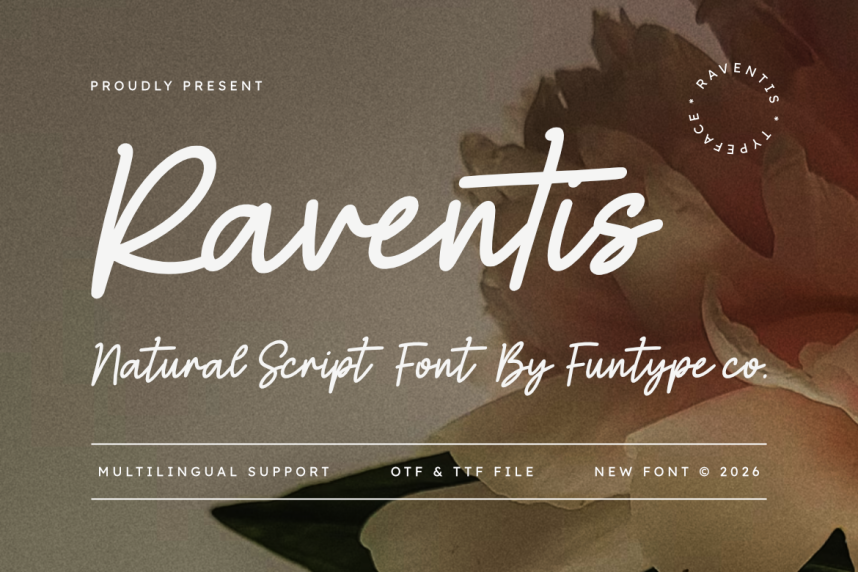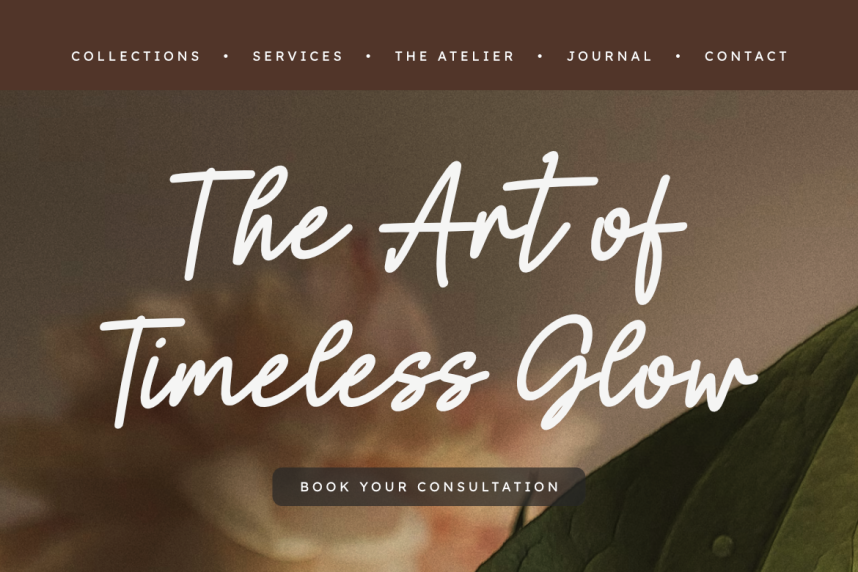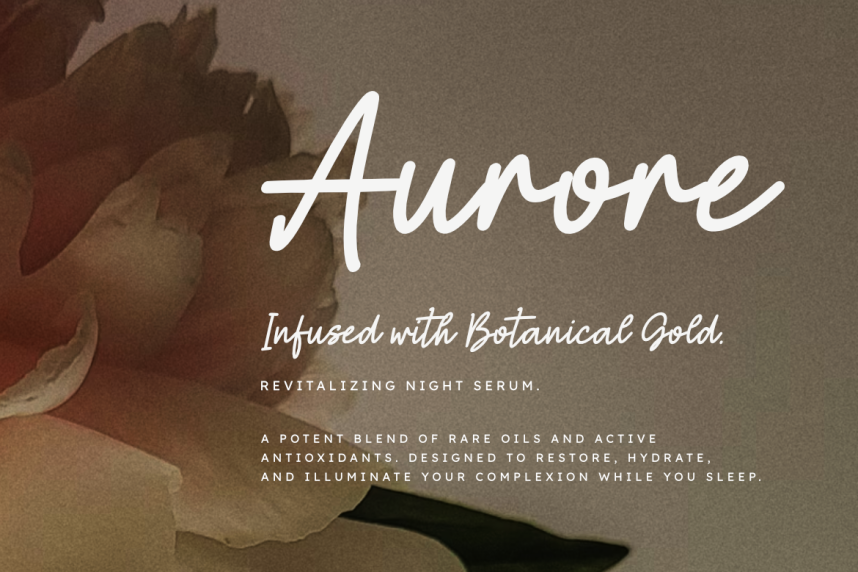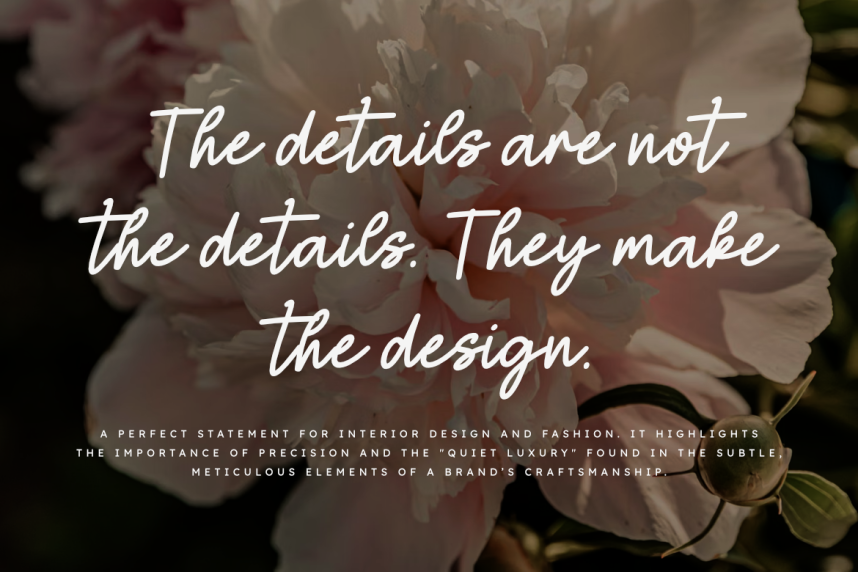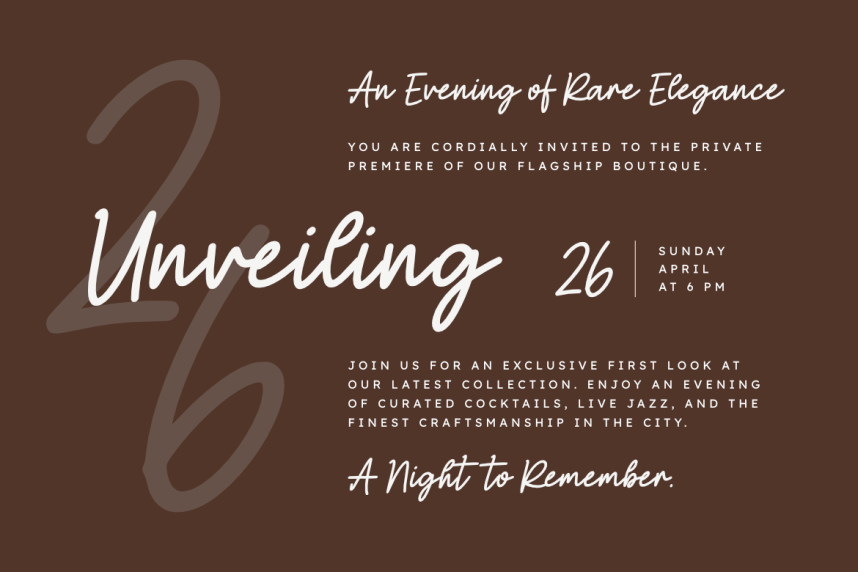
Raventis Font
Raventis Font is a sophisticated and clean natural script font, thoughtfully designed to capture the essence of modern elegance and intimate storytelling. With its consistent monoline weight and organic, flowing strokes, Raventis offers a bespoke aesthetic that brings a touch of effortless grace to any creative project.
This font is the ideal choice for designers looking to add a professional yet heartfelt touch to their work. Whether you are crafting delicate wedding stationery, a chic lifestyle logo, or elegant editorial layouts, Raventis provides a seamless blend of contemporary flair and timeless simplicity.